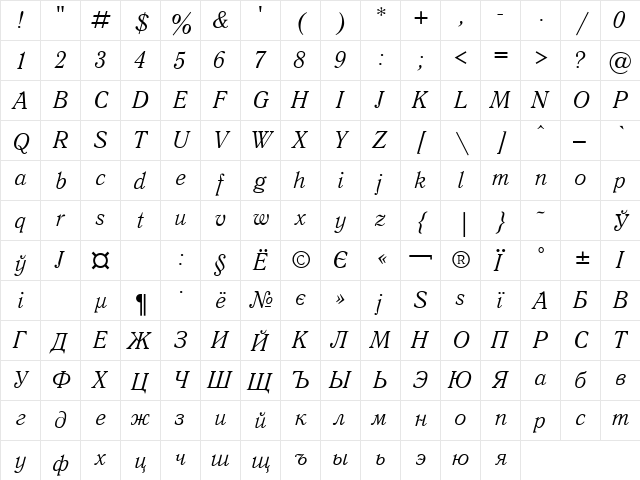
QuantAntiquaC Italic
Design Context for QuantAntiquaC Typeface
QuantAntiquaC takes a measured approach to typography — its balanced proportions and neutral character make it a reliable workhorse for both digital and print work. Its italic angle brings a sense of urgency and motion to the letterforms.
Pro Tip: Try QuantAntiquaC for annotation and caption copy alongside an upright companion — the contrast in angle creates a dynamic but ordered typographic system.